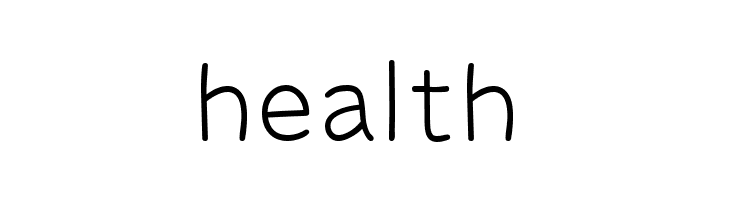
( Fonts by www.someshinzz.com )
A clean, modern sans-serif font with uniform stroke width and balanced design.
( Fonts by StringLabs Creative Studio )
A bold, handwritten-style font with dynamic, rounded characters.
( Fonts by StringLabs Creative Studio )
A bold, dynamic script font with a handwritten feel.
( tricky )
A bold, geometric, and playful font with a whimsical and artistic style.
( Fonts by MatNowRock )
A playful, hand-drawn font with a bold, cartoonish style.
( Fonts by Creatype Studio )
A playful and decorative font with high contrast and whimsical design.
( Fonts by Arif Studios )
A playful, bold font with a hand-drawn, whimsical style.
( Fonts by Graphicxell )
A playful, bold font with rounded strokes and a friendly aesthetic.
( Fonts by hamisyummy )
A playful, hand-drawn font with bold, rounded characters and a cartoonish vibe.